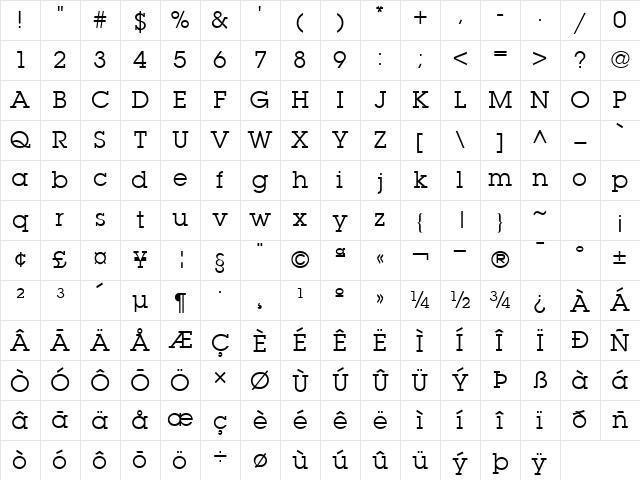
TorrentGraphicSSK Regular
Complete TorrentGraphicSSK Regular glyph index. Displaying only characters natively supported by TorrentGraphicSSK Regular font.
Design Context for TorrentGraphicSSK
TorrentGraphicSSK is a composed and adaptable typeface that performs quietly and consistently across a wide range of design contexts.